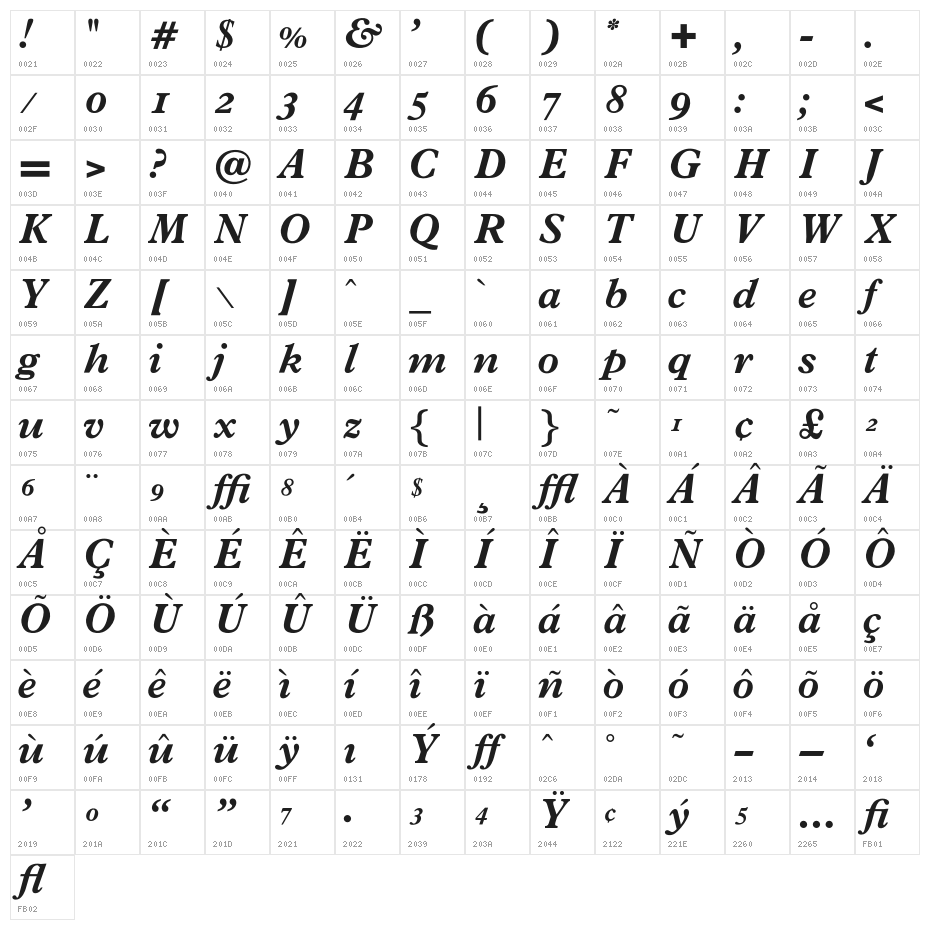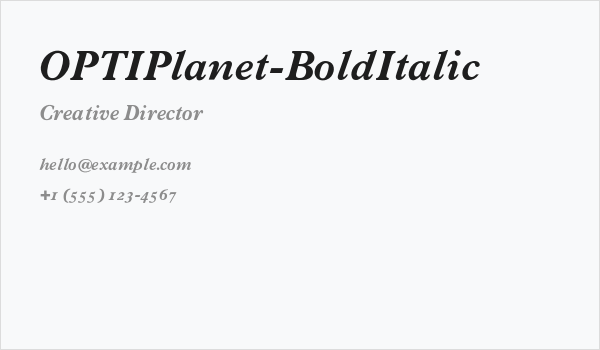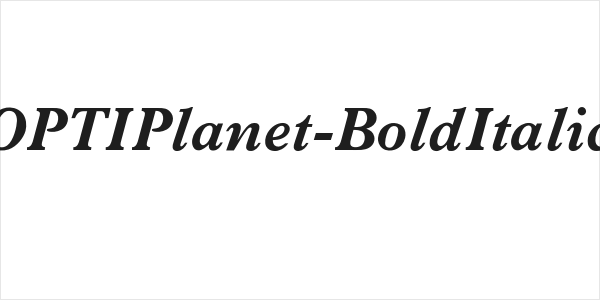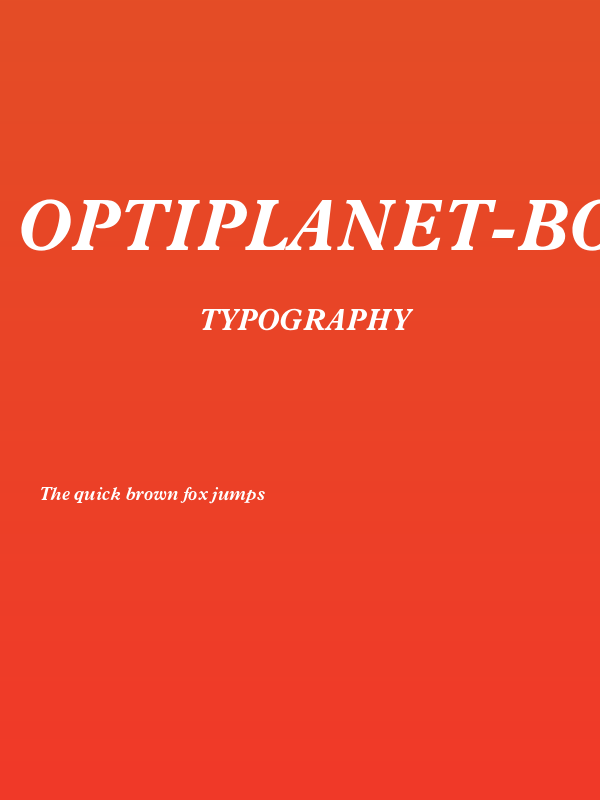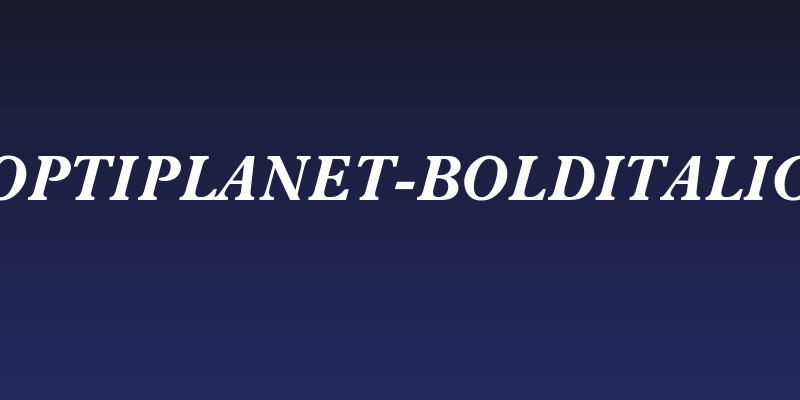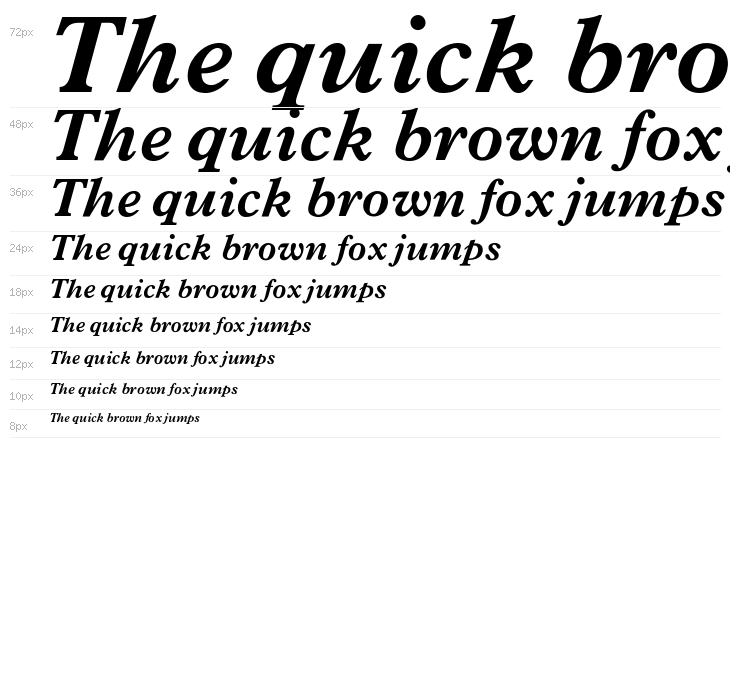
OPTIPlanet-BoldItalic Font
OPTIPlanet-BoldItalic Description
This font exhibits a bold and italicized style, characterized by its strong and dynamic presence. The letters are slanted, adding a sense of movement and elegance. The strokes are thick, providing a robust and confident appearance. The serifs are pronounced, contributing to a classic and formal look. The overall design is cohesive, with consistent slant and weight across all characters, including uppercase, lowercase, numerals, and special symbols. This font is suitable for making a bold statement while maintaining a touch of sophistication.
| Proposed Projects | Ideal for branding, headlines, posters, and any project requiring a bold, elegant statement. |